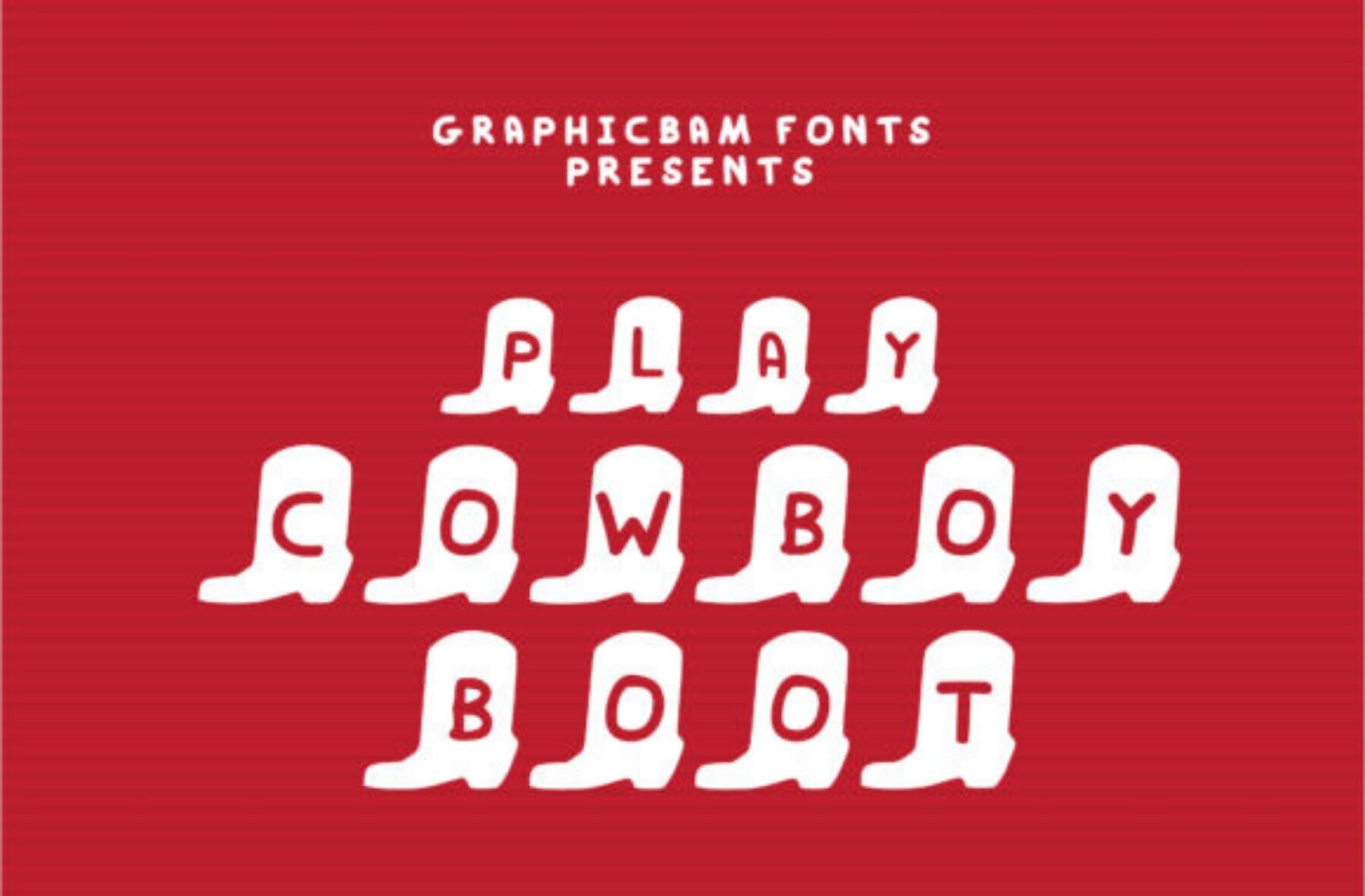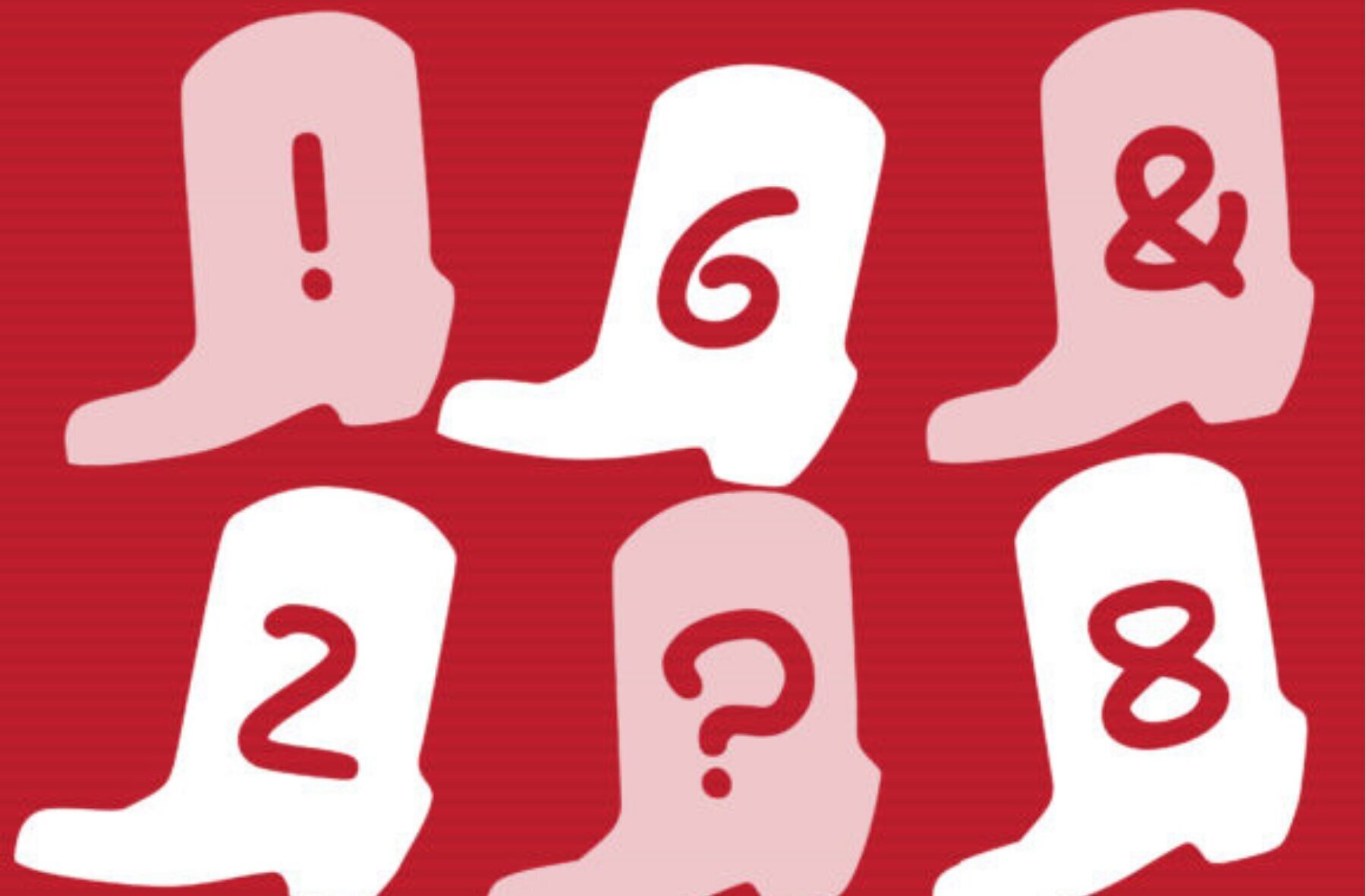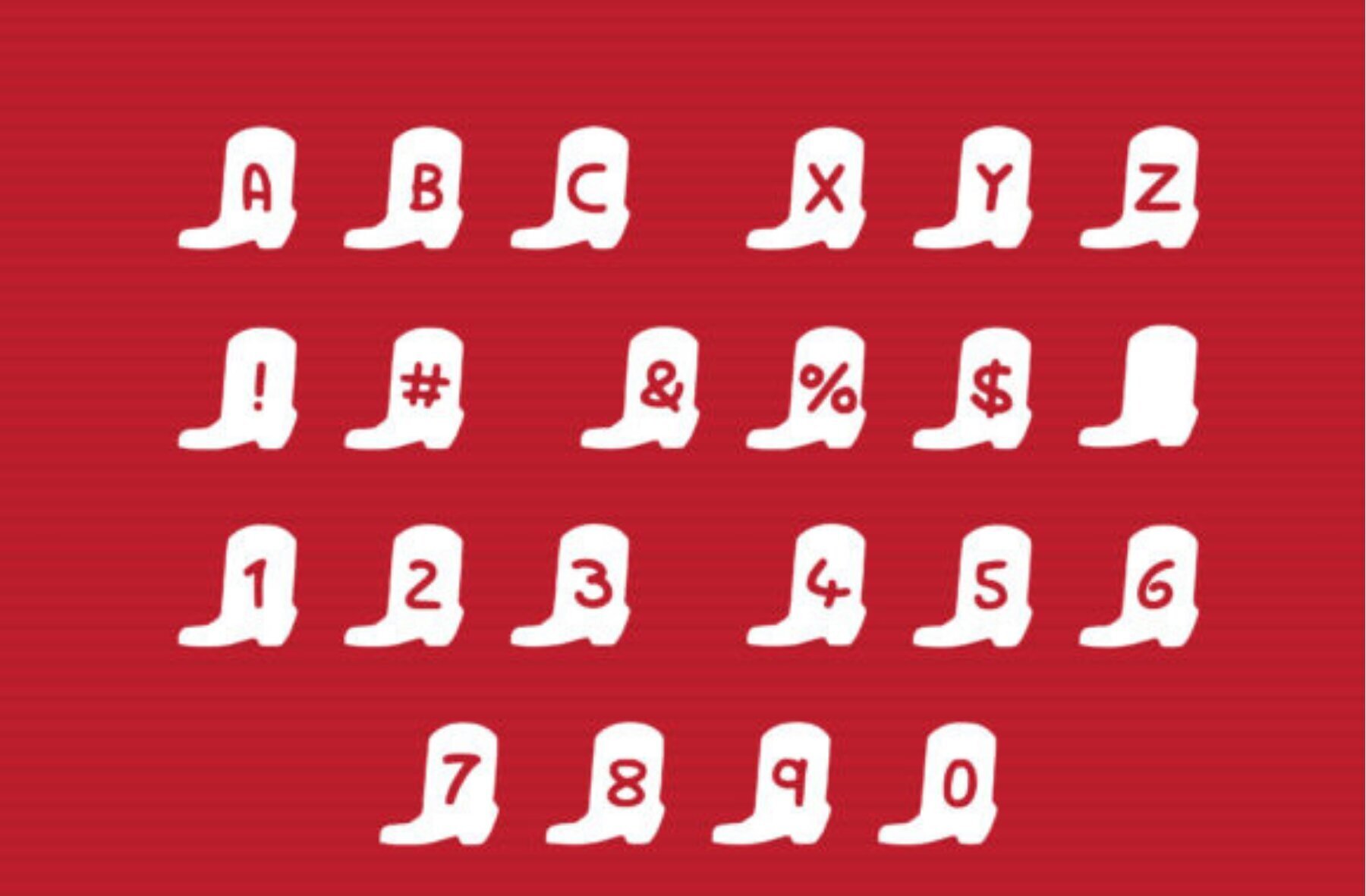
Play Cowboy Boot Font
Play Cowboy Boot Regular
The Play Cowboy Boot font by Graphics Bam offers a unique spin on decorative typography. Each character features a distinctive cowboy boot motif, giving your designs a playful and imaginative edge. This font is a versatile addition to your collection, perfectly complementing themes from western to whimsical.Play Cowboy Boot: Decorative Typographic Flair